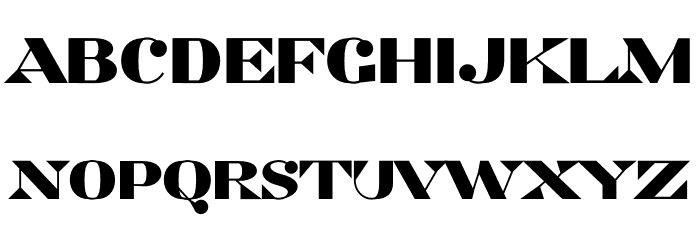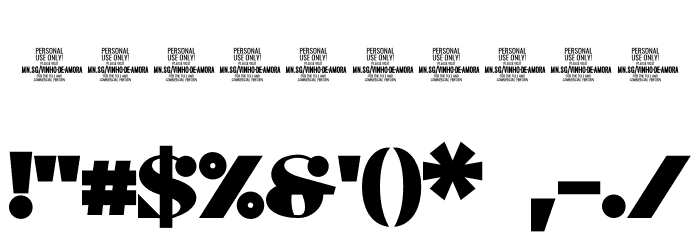
Vinho De Amora PERSONAL USE ONLY Black Font
This font features a bold and striking design, characterized by its geometric and angular shapes. The uppercase letters are particularly distinctive, with sharp edges and a modern aesthetic. The font includes a full set of uppercase and lowercase letters, numbers, and a variety of special characters. The unique style of the characters makes it stand out, with a blend of traditional serif elements and contemporary design. The bold weight and high contrast in stroke thickness give it a powerful presence, making it suitable for attention-grabbing headlines and titles.
A bold, geometric font with high contrast and angular shapes.